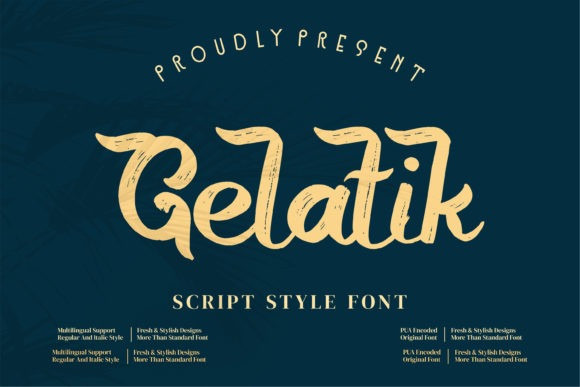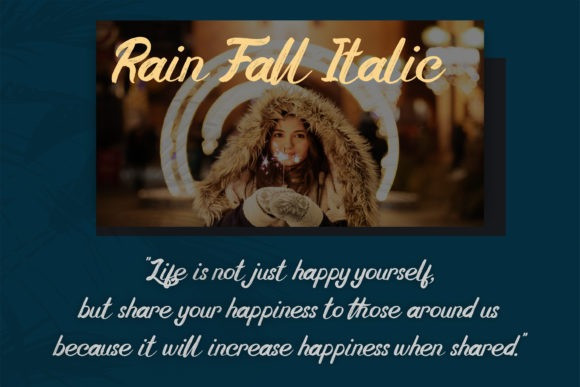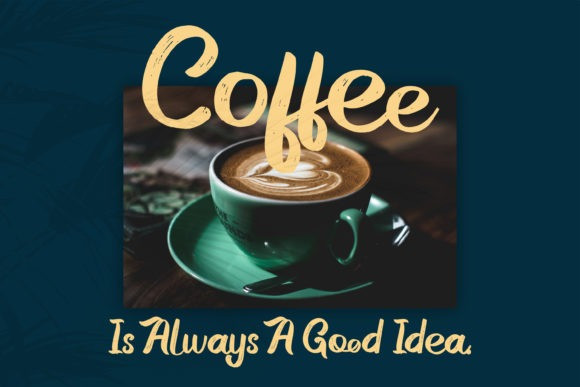
Gelatik Font
Gelatik is a modern handwritten font suitable for any projects such as logos, branding projects, homeware designs, product packaging, mugs, quotes, posters, shopping bags, t-shirts, book covers, name cards, invitation cards, greeting cards, labels, photography, watermark, special events, and all your other luxury projects that need a premium signature taste.